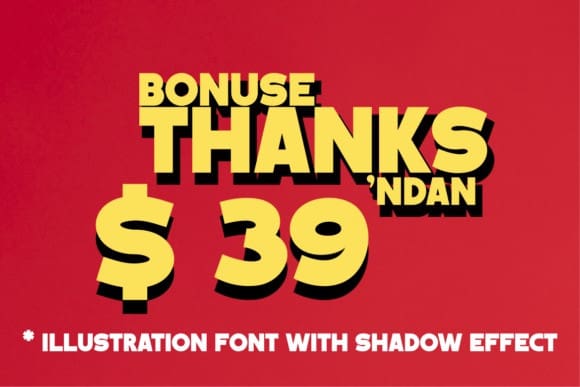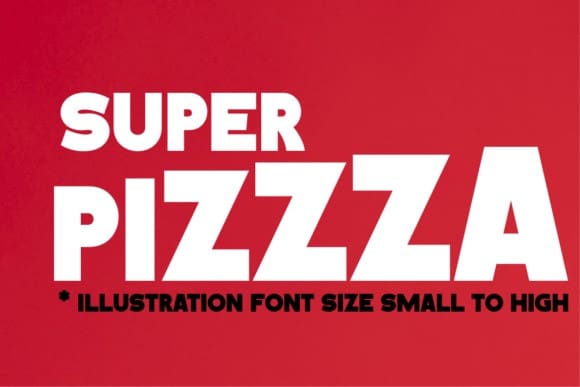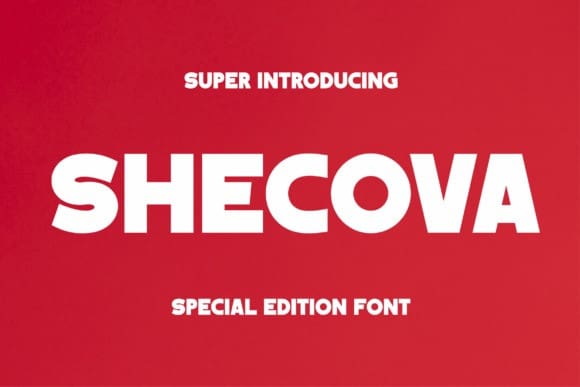
Shecova Font
Shecova Font is a bold and assertive serif font. No matter the topic, this font will be an incredible asset to your fonts’ library, as it has the potential to elevate any creation.